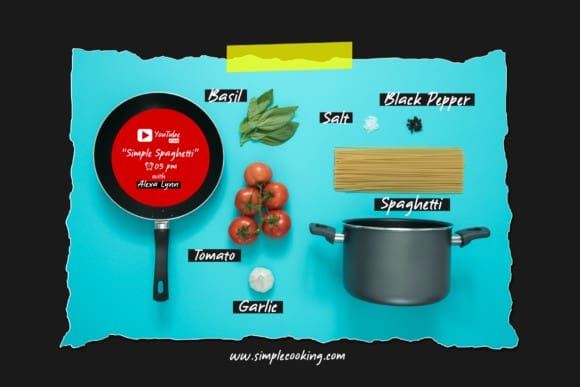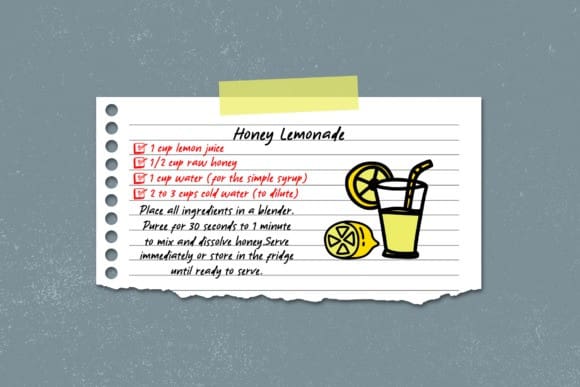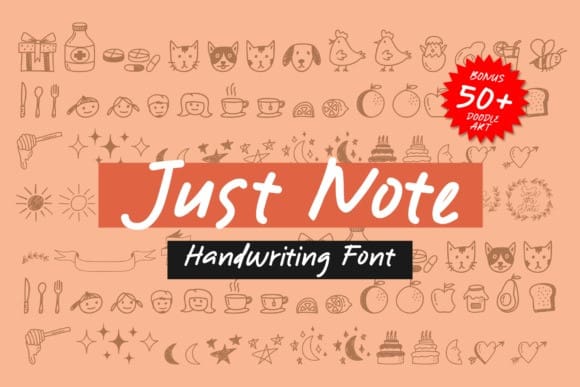
Just Note Font
Just Note Font is an organic and beautiful decorative font, featuring lovely ornaments. No matter the topic, this font will be an incredibly asset to your fonts’ library, as it has the potential to elevate any creation.